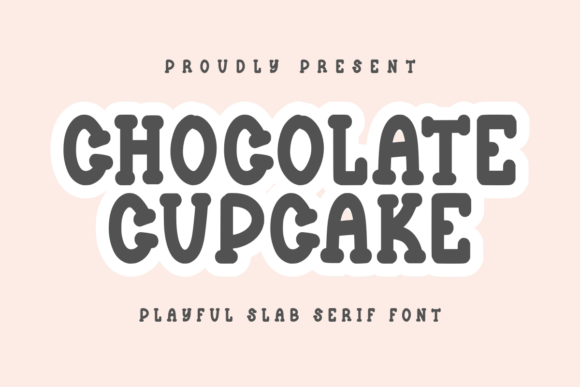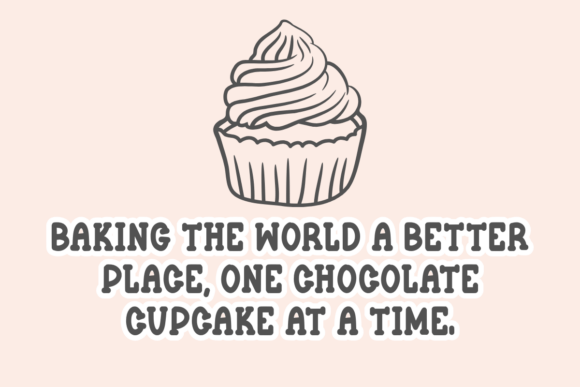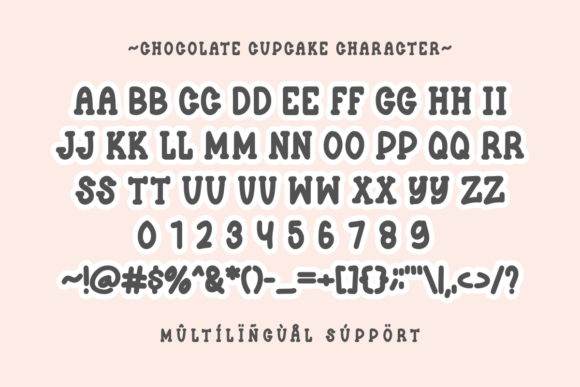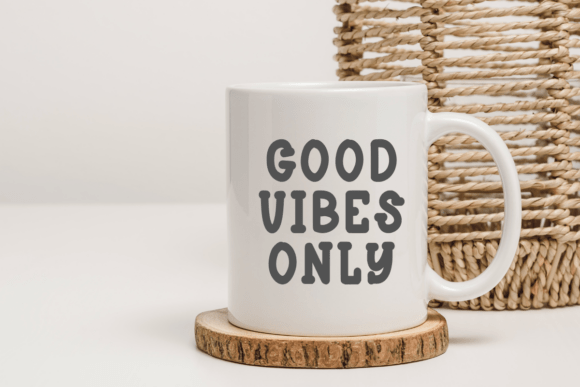
Chocolate Cupcake Font: A Cute & Playful Slab Serif for Cricut
About the Chocolate Cupcake Font
The Chocolate Cupcake Font is here to transform your projects with its distinctive character and style. Chocolate Cupcake is a charming slab serif font with a clean yet whimsical vibe. Featuring smooth curves and a hand-drawn feel, this font is perfect for romantic designs, wedding invitations, heartfelt branding, and elegant social media graphics. Its versatile style pairs a modern aesthetic with a touch of playful warmth, making it ideal for creative and love-inspired projects.
Chocolate Cupcake Font Usage Examples
Chocolate Cupcake Font Example